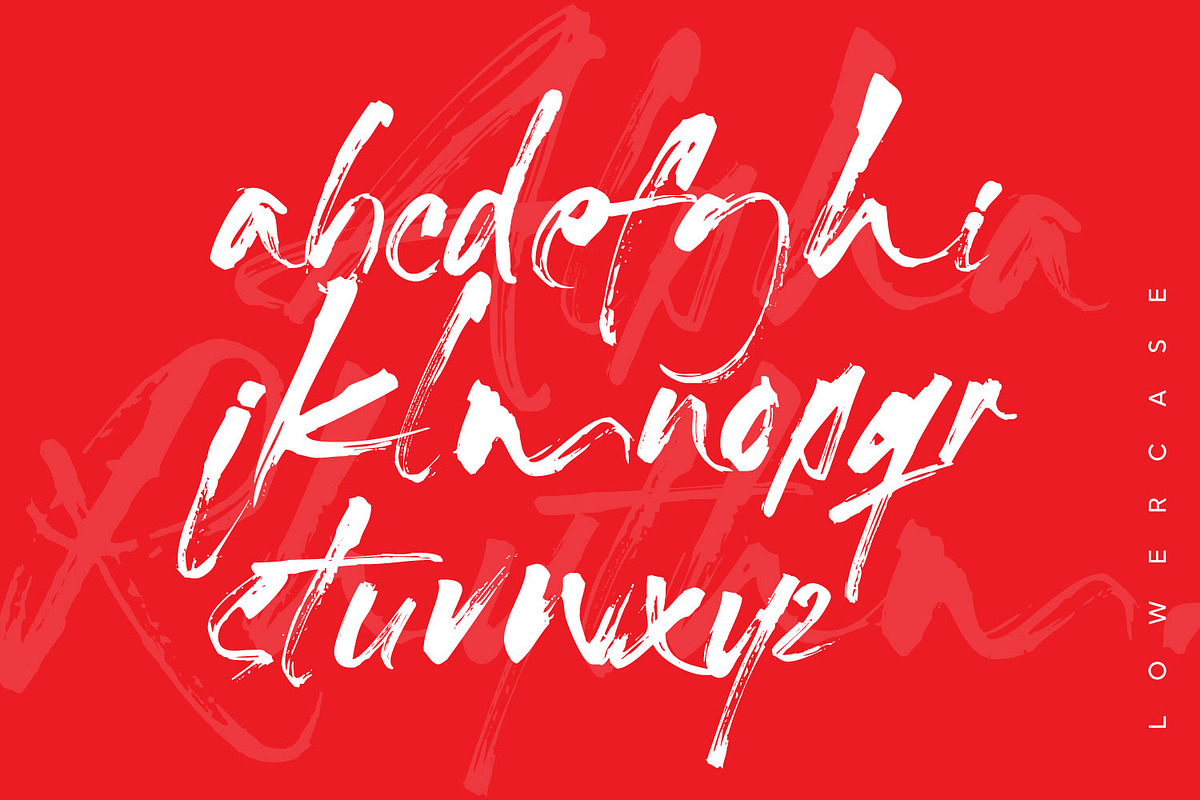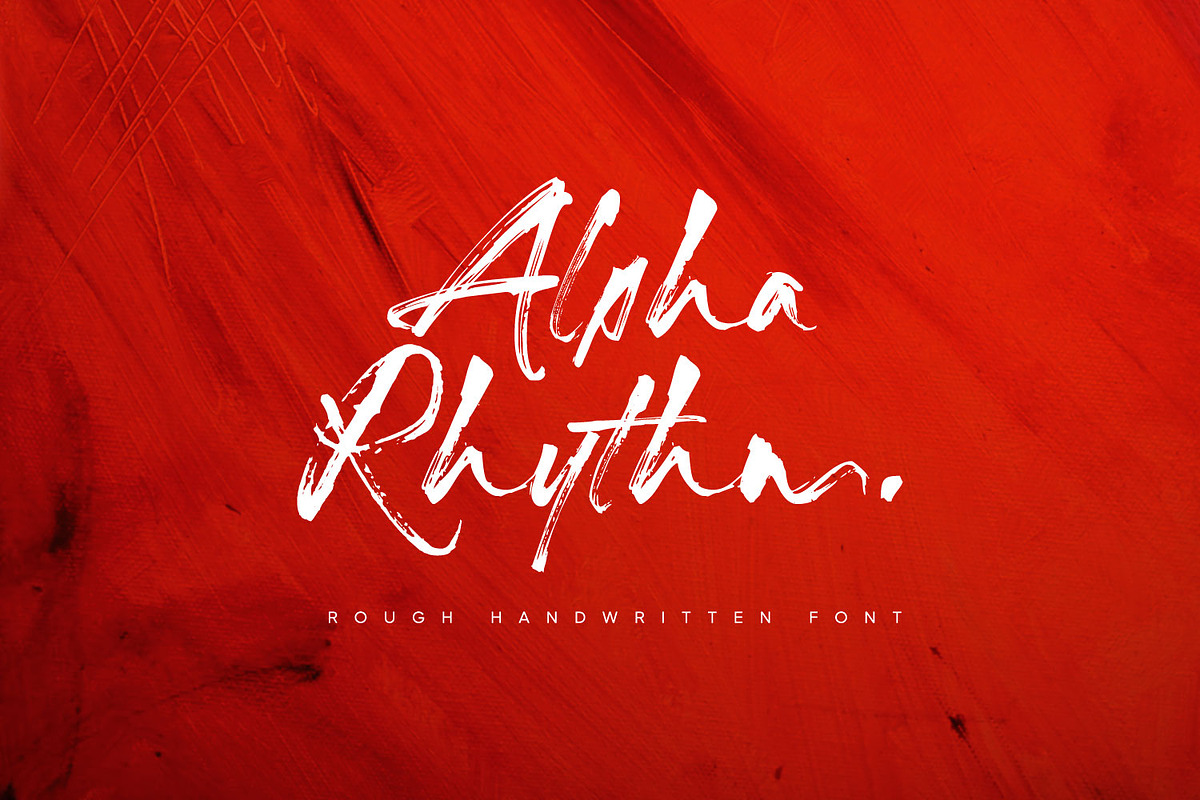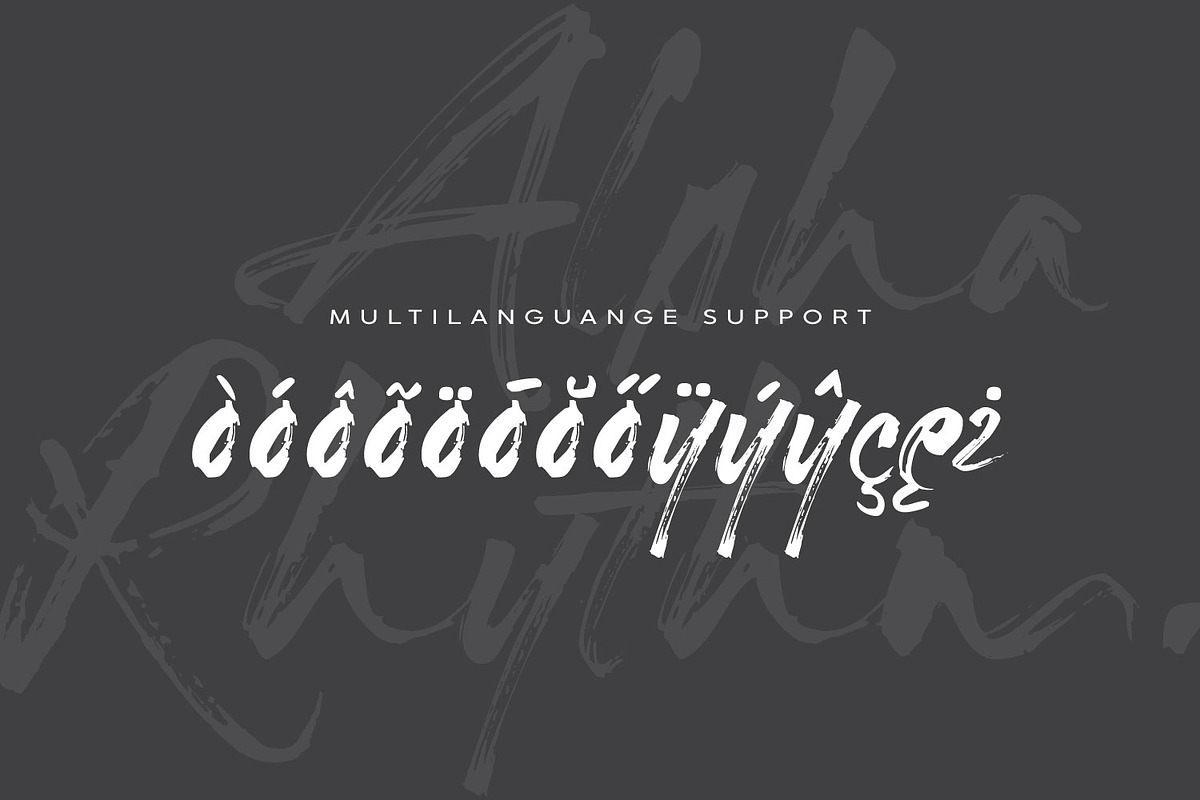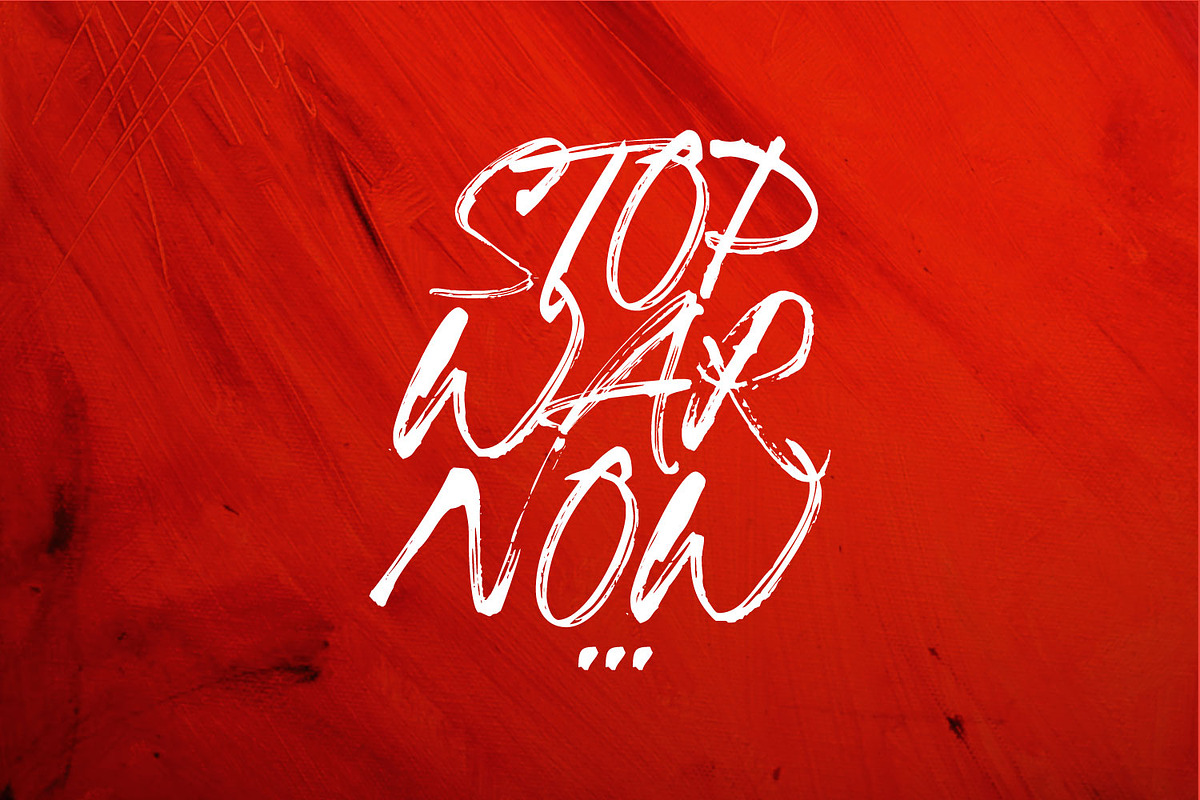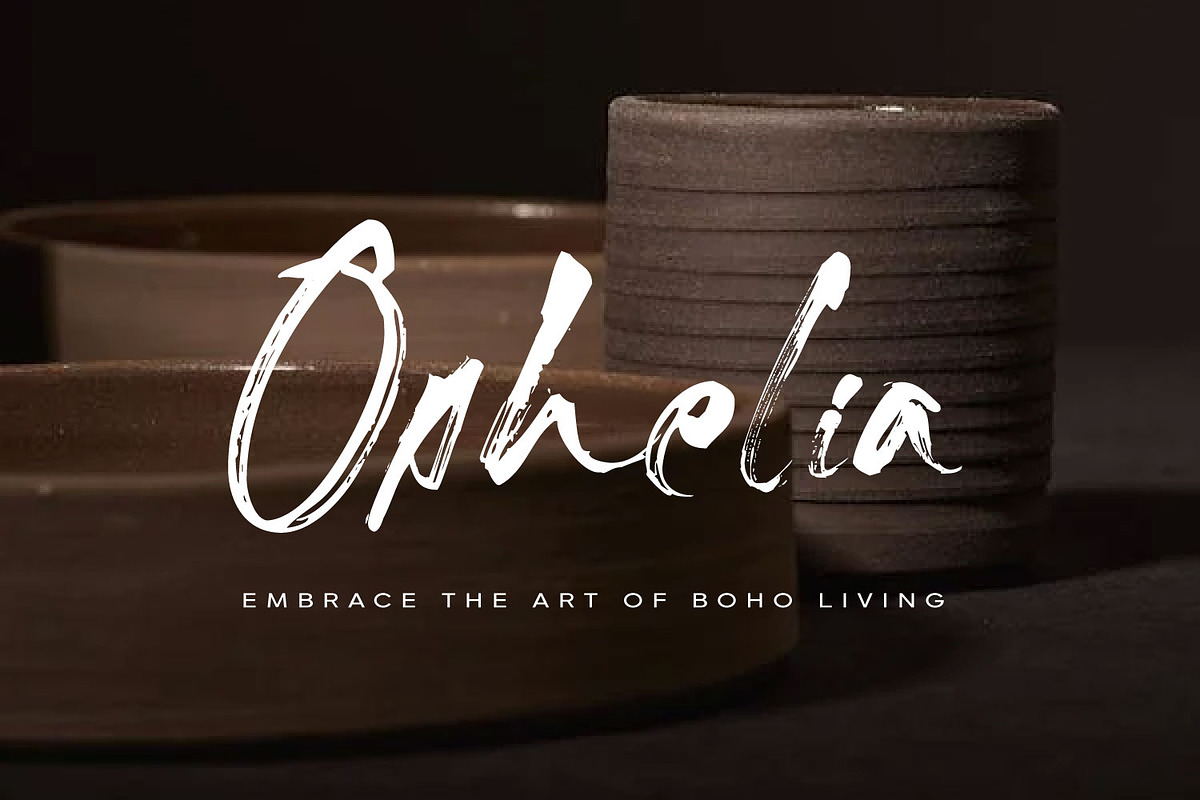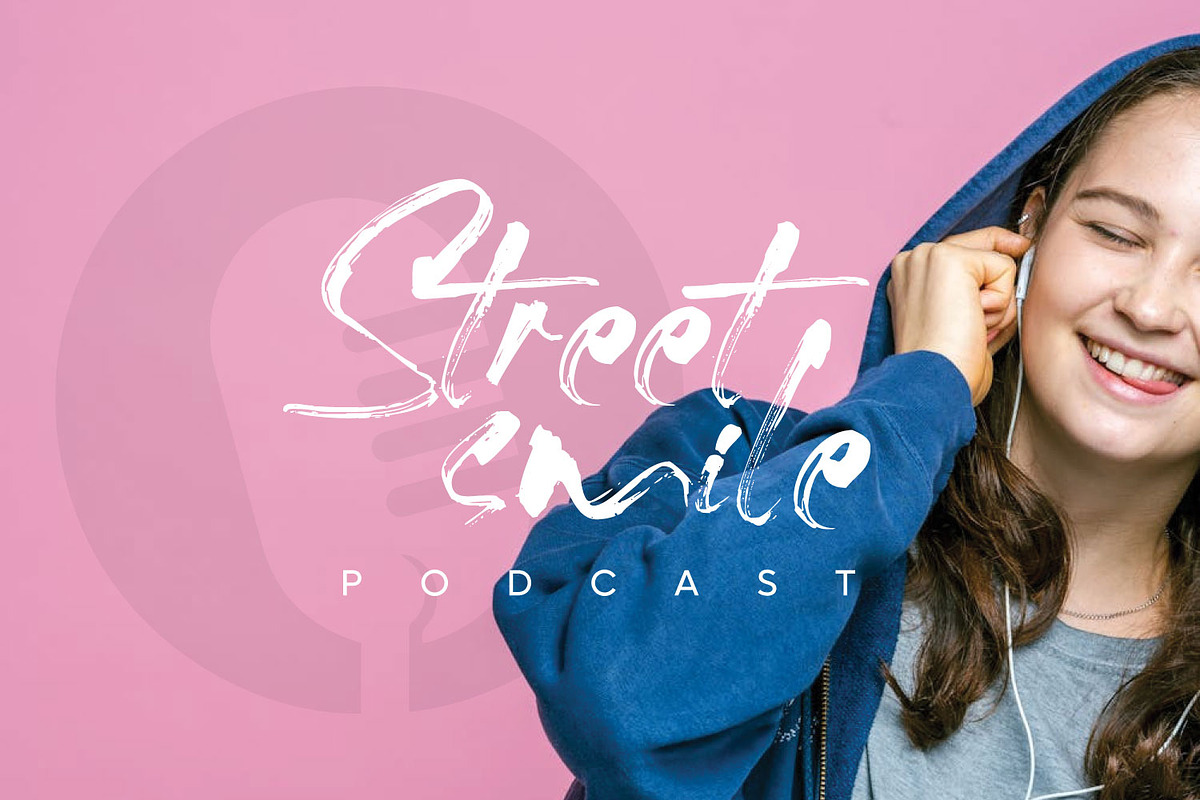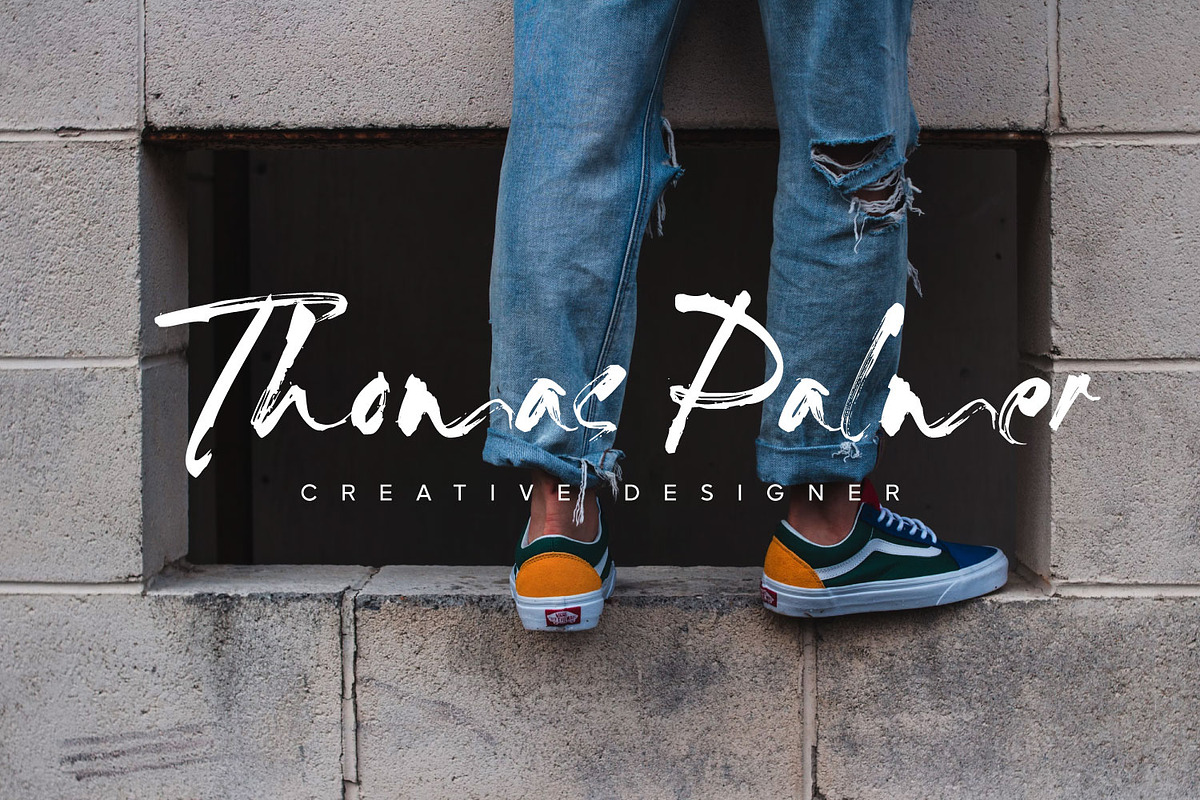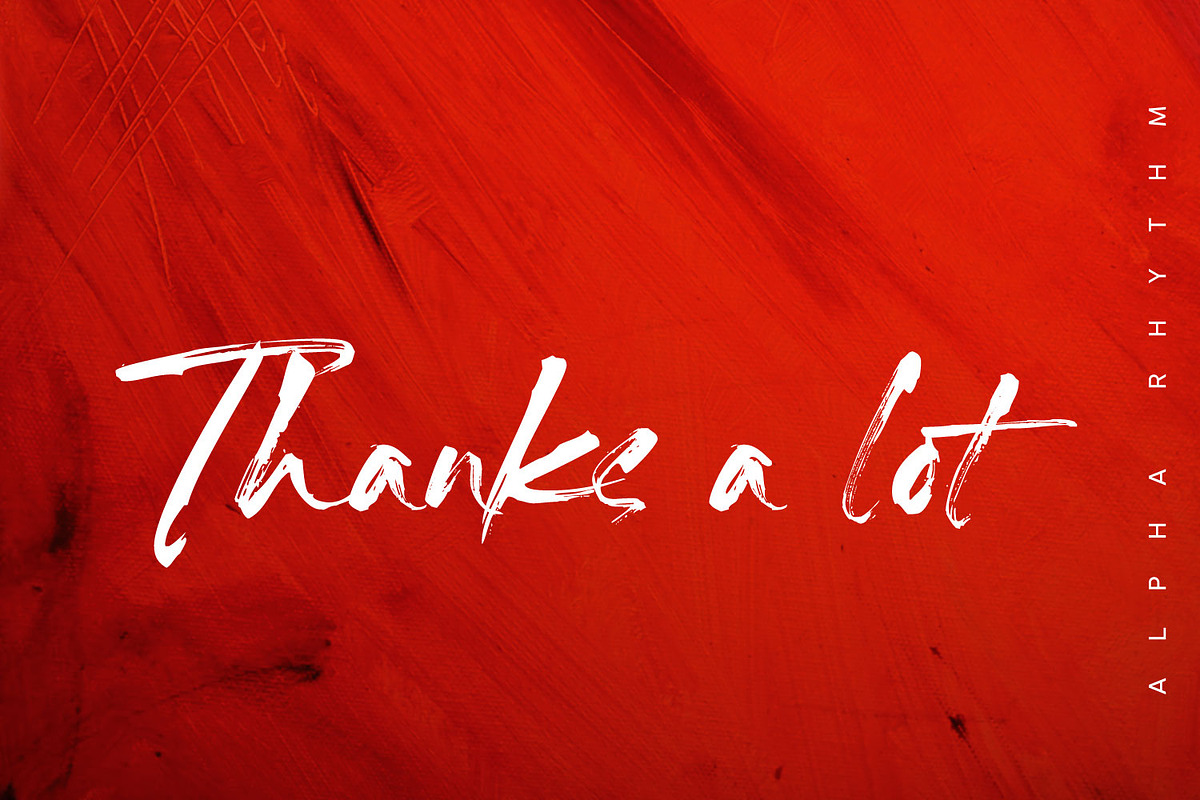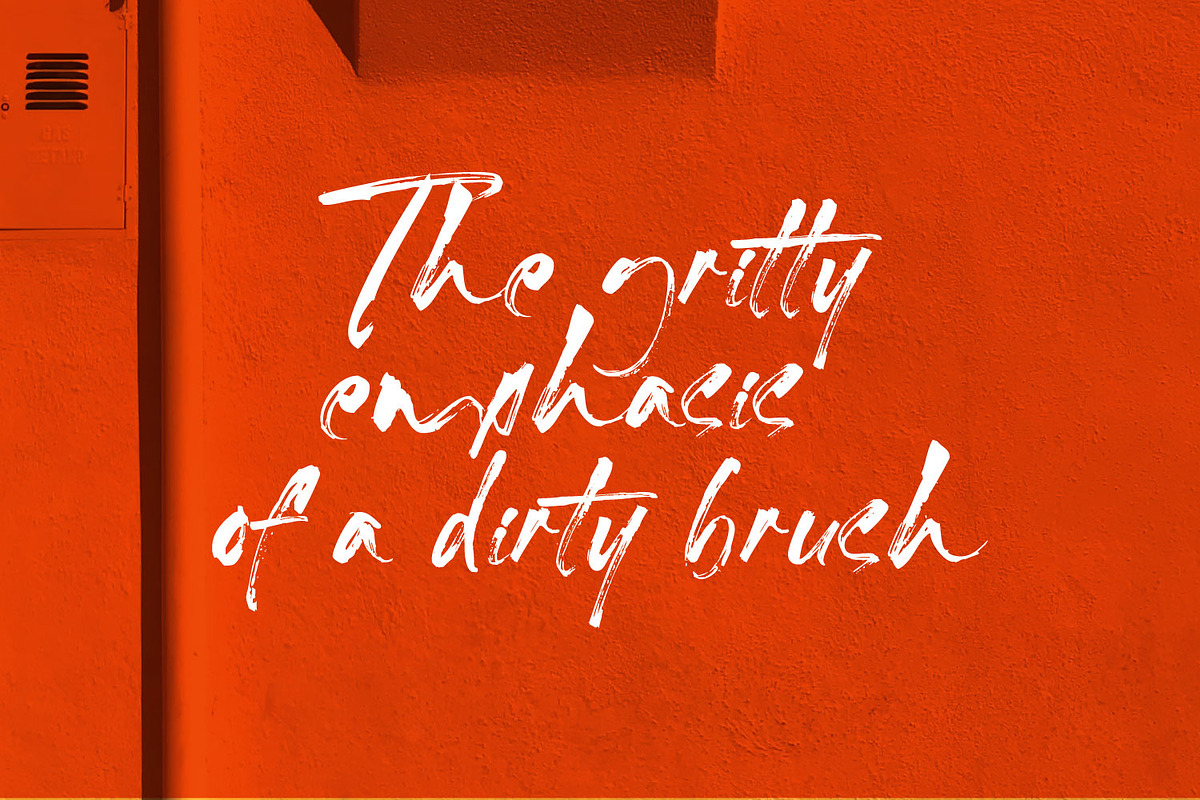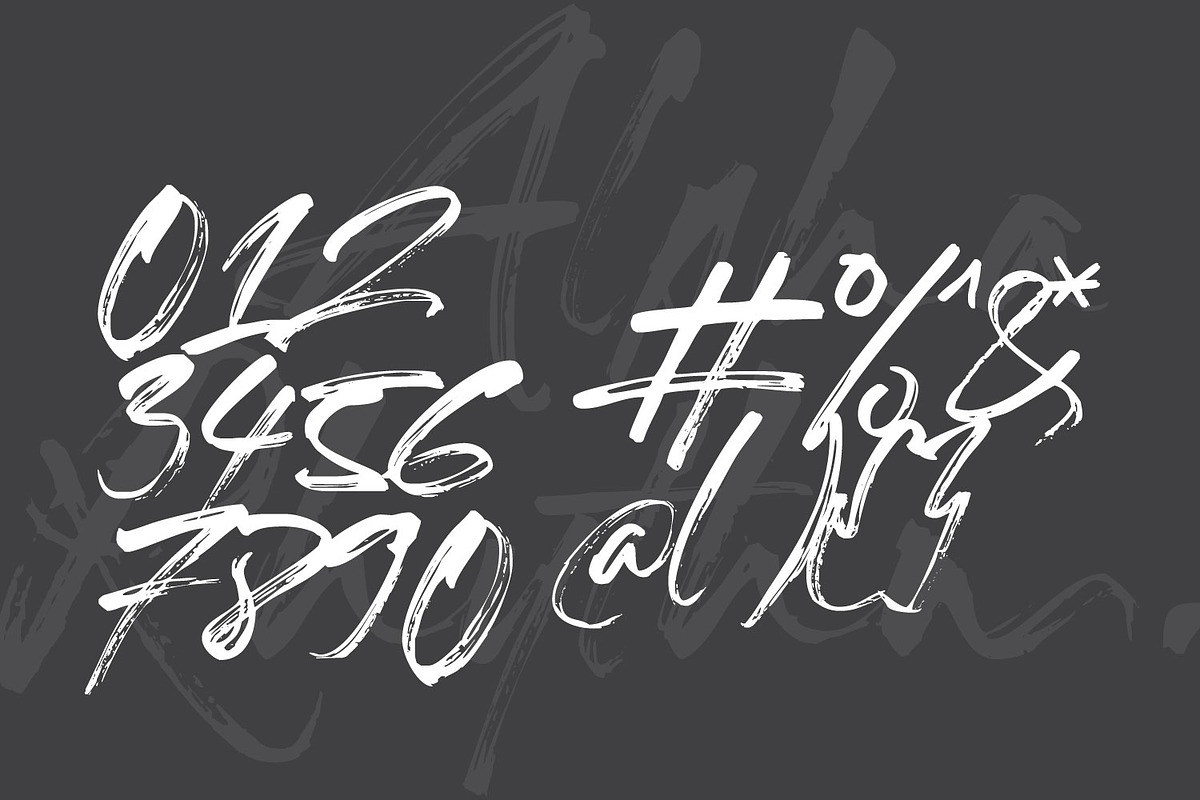
Alpha Rhythm
Alpha Rhythm is a rough, handwritten script font that exudes boldness and character through its textured, brush-like strokes. Designed to resemble the natural, imperfect lines of a marker or paintbrush, this font brings a rugged elegance to any project. Each letter feels handcrafted, with varying stroke widths and a gritty aesthetic that makes it perfect for adding authenticity and flair. Alpha Rhythm is equipped with both uppercase and lowercase letters, numbers, symbols, and diacritics, offering support for multiple languages. Its raw, expressive style is ideal for projects needing a creative edge, including logos, branding, packaging, social media graphics, posters, and invitations. With Alpha Rhythm, designers can evoke a sense of dynamic energy and artistry, making it a versatile choice for those looking to make a bold statement